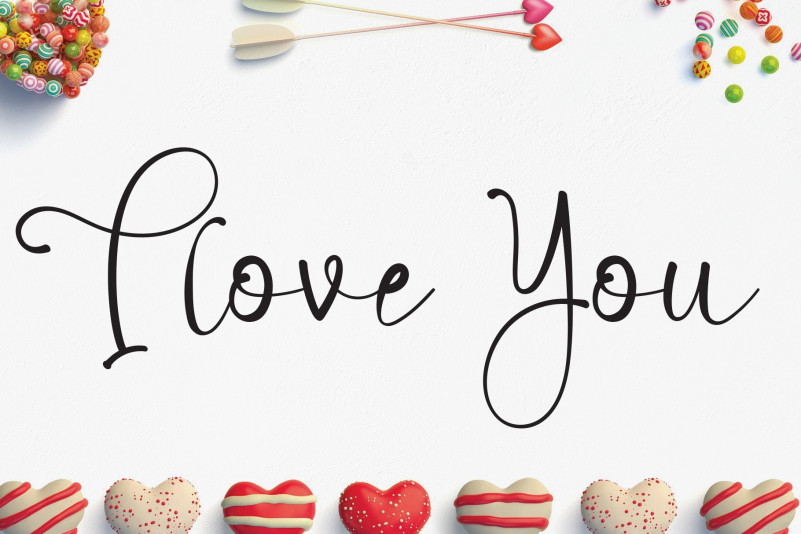
Queens Signature Font
Queens Signature is a sweet and elegant handwritten font. Thin and dainty, this font will make each of your designs look outstanding. It can be used for various purposes such as logos, wedding invitations, headings, t-shirts, letterhead, signage, labels, news, posters, badges and so much more.